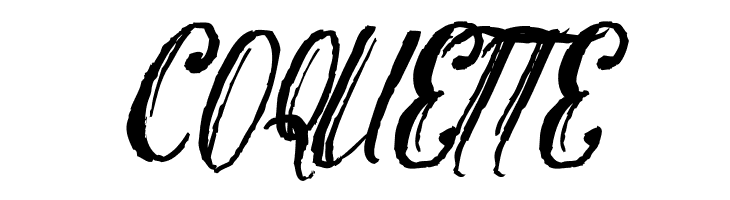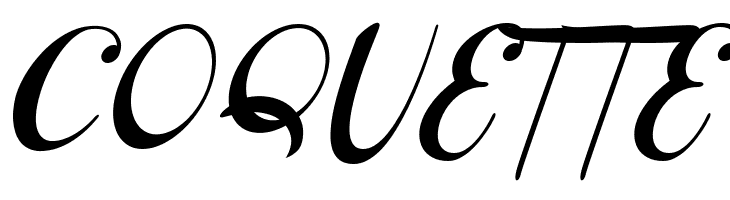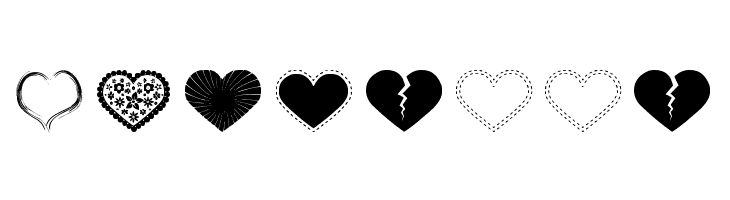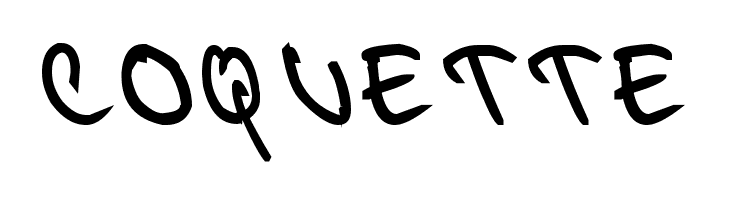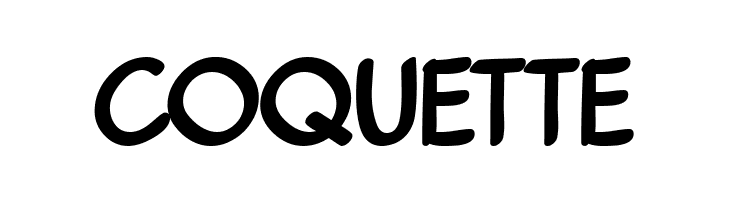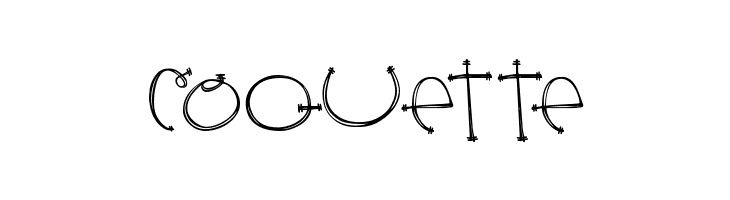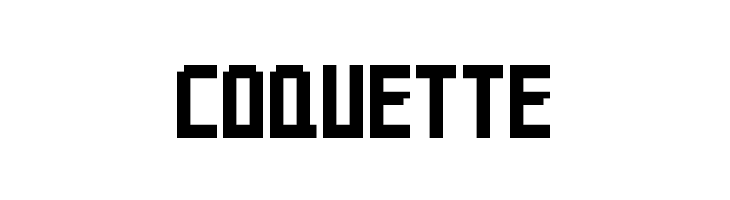
A dynamic brush script font with bold, slanted strokes and artistic flair.
A dynamic, slanted script font with elegant curves and fluid strokes.
A bold, playful font with rounded edges and a hand-drawn look.
A playful, hand-drawn font with decorative elements and a whimsical style.